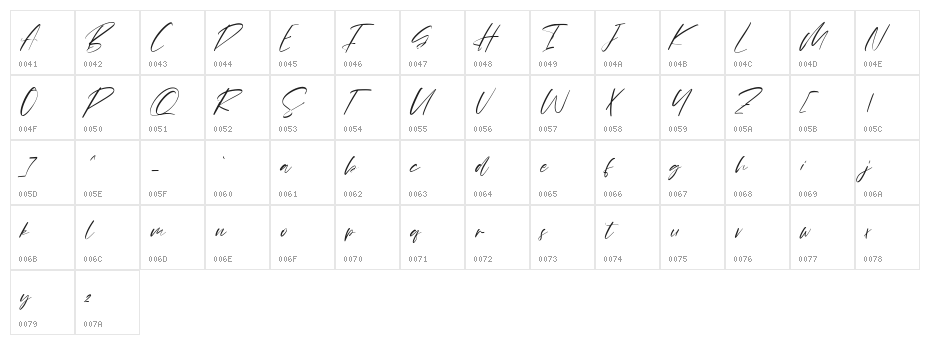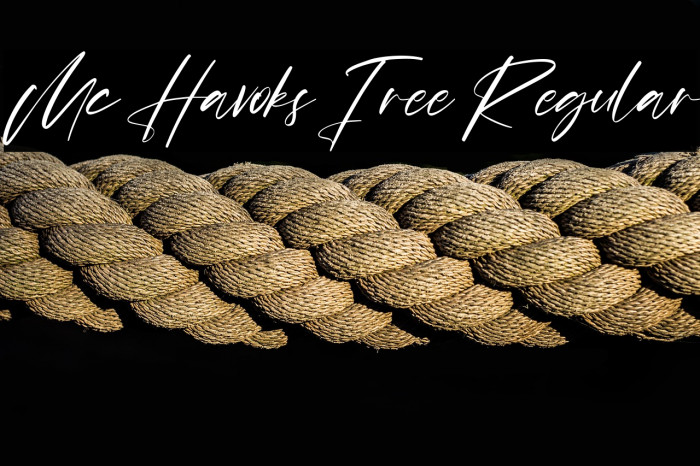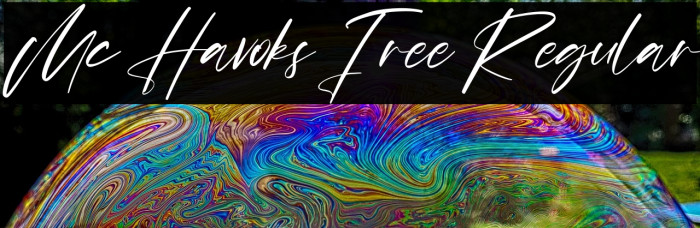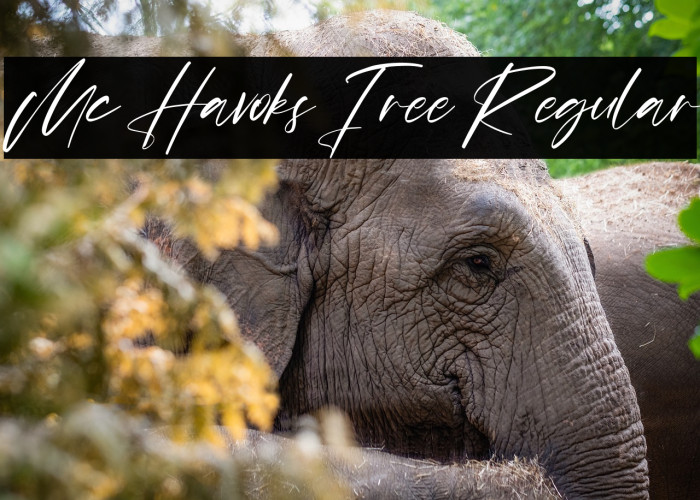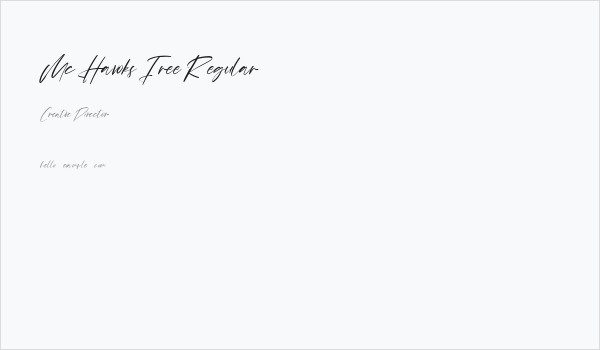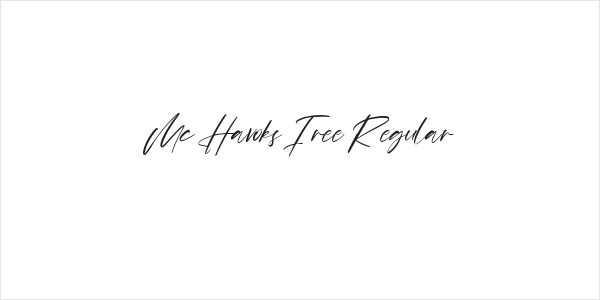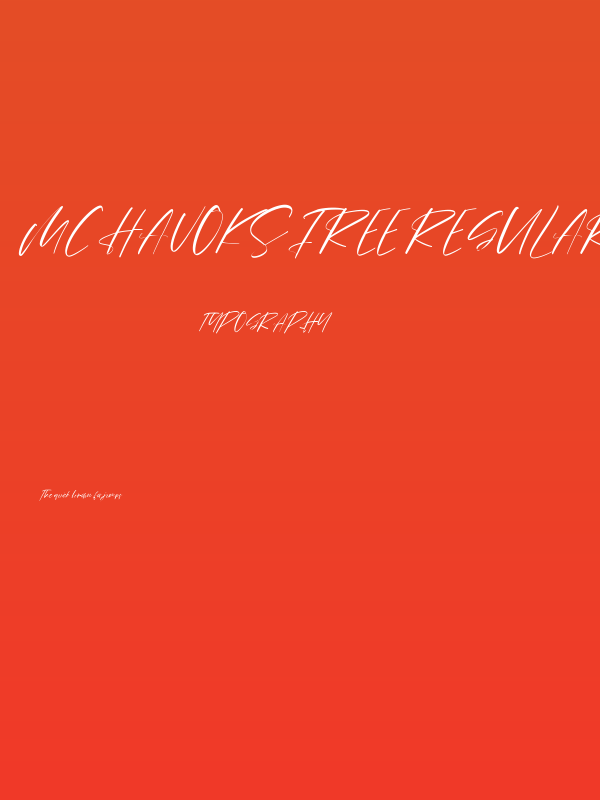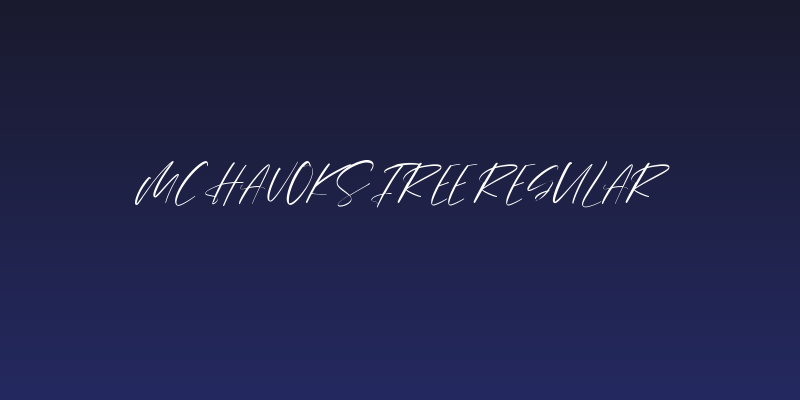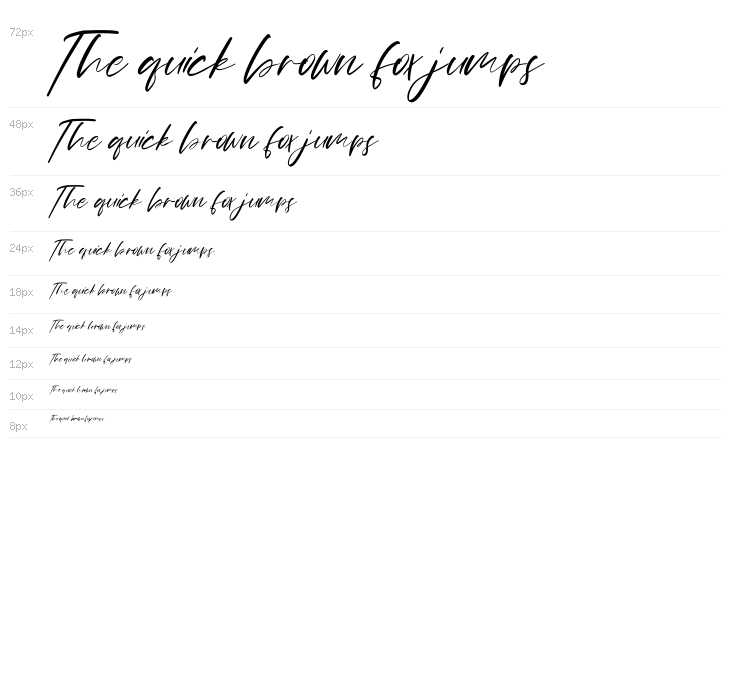
Mc Havoks Free Regular Font
Mc Havoks Free Regular Description
This font features a dynamic and expressive handwritten style, characterized by its flowing, cursive letterforms. The strokes are elegantly elongated, with a natural, free-flowing rhythm that gives it a sense of movement and energy. The uppercase letters are bold and prominent, while the lowercase letters maintain a consistent fluidity, making it versatile for various design applications. The font's unique style is accentuated by its slightly irregular baseline, adding a touch of authenticity and charm. Its overall appearance is both modern and artistic, suitable for creative projects that require a personal touch.